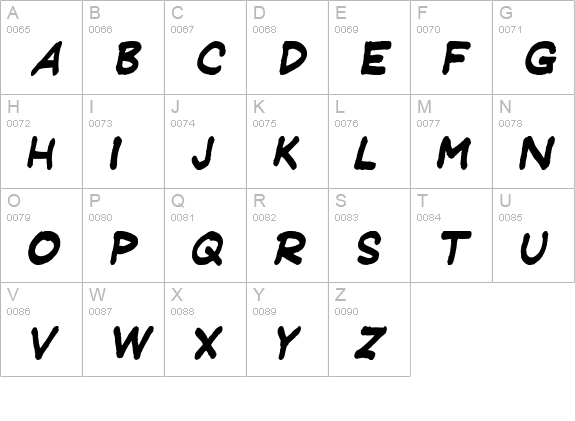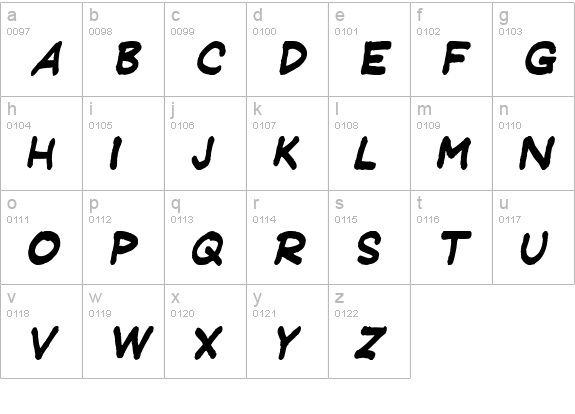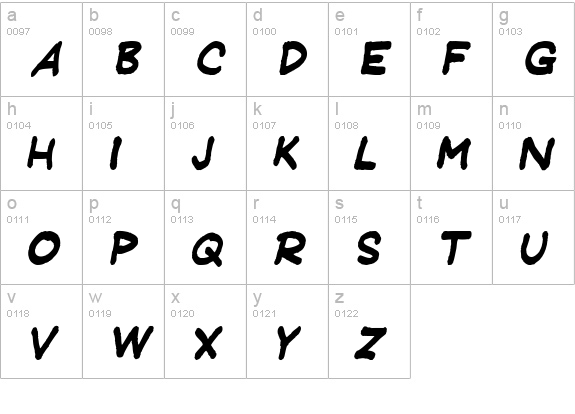
JeffreyPrint JL Italic is a distinctive, italic variant in the JeffreyPrint typeface family \xE2\x80\x94 well suited to design and typography projects.
JeffreyPrint JL Italic is a stylish and elegant font that exudes sophistication and charm. With its sleek and modern design, this font is perfect for adding a touch of class to any project. Whether you're creating a logo, designing a website, or working on a print publication, JeffreyPrint JL Italic is sure to make a bold statement. The best part? JeffreyPrint JL Italic is available for free download at FontsMarket.com, making it easily accessible to anyone looking to elevate their design game. Don't miss out on the opportunity to add this stunning font to your collection and take your projects to the next level.